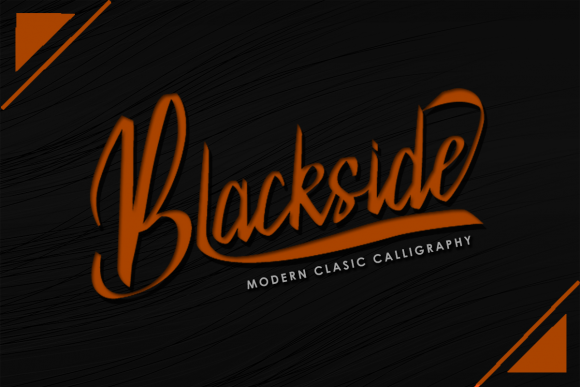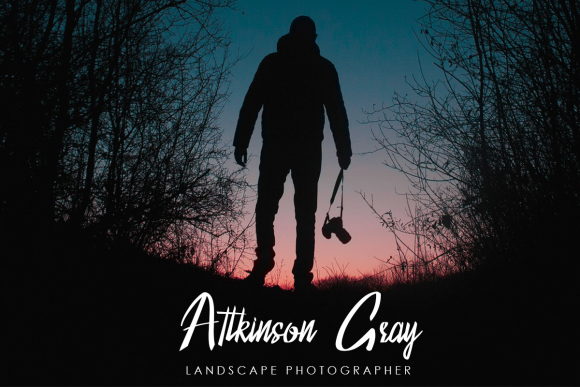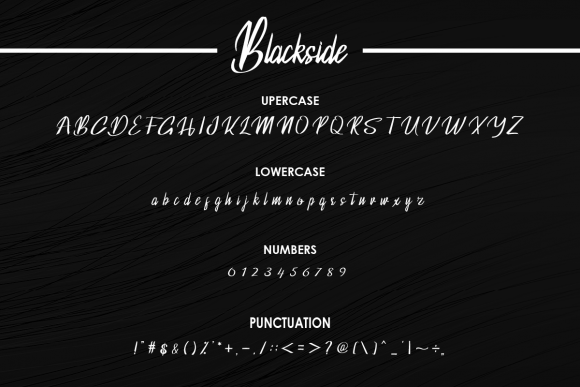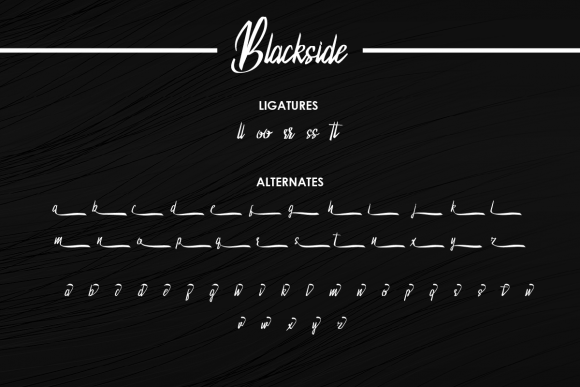
About Blackside Font
Blackside is a bold and classic handwritten font. This versatile script font has a wide spectrum of applications ranging from greeting cards to headlines and is guaranteed to add a romantic feel to your next project. This font is PUA encoded which means you can access all of the glyphs and swashes with ease!